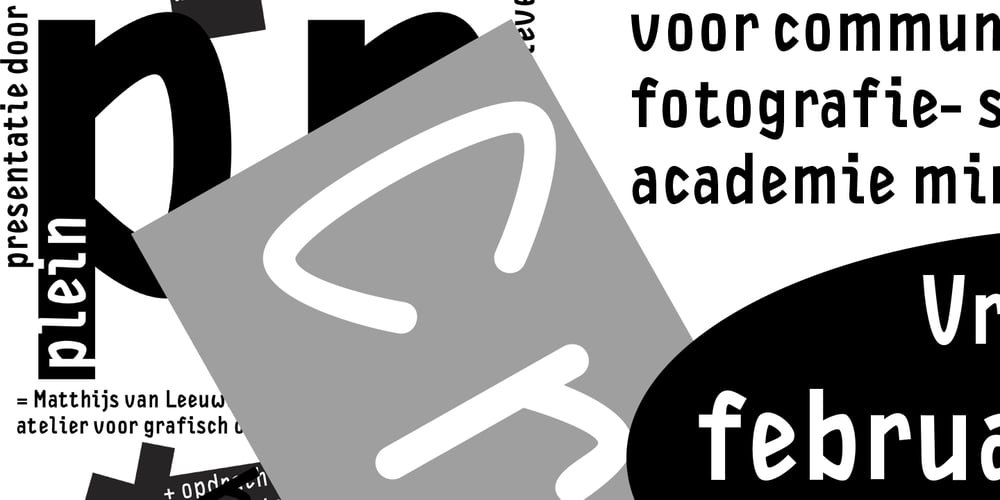
DF Staple TXT Font Family was designed by published by Dutchfonts. DF Staple TXT contains 30 styles and family package options. StapleTXT is a transformation from the monospaced typewriter font Staple mono into a text type. The ‘mono’ skeleton was used as much as possible but some characters were slightly altered in order to obtain more regularity without losing its specific typewriter atmosphere: little variation in character widths. The font has lining figures and works very well as text system in combination with the Staple mono.